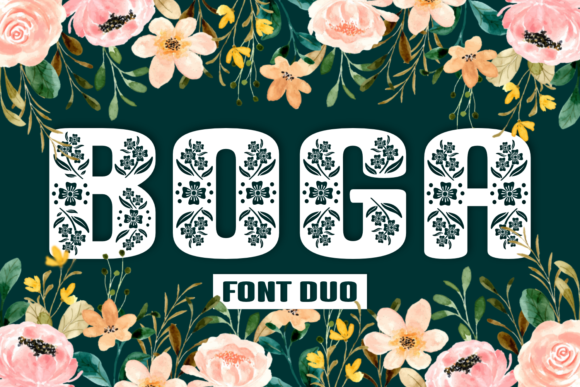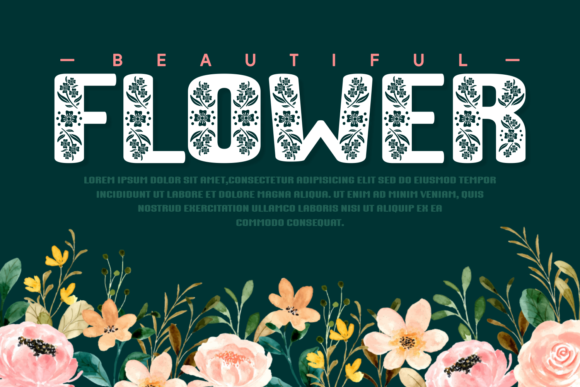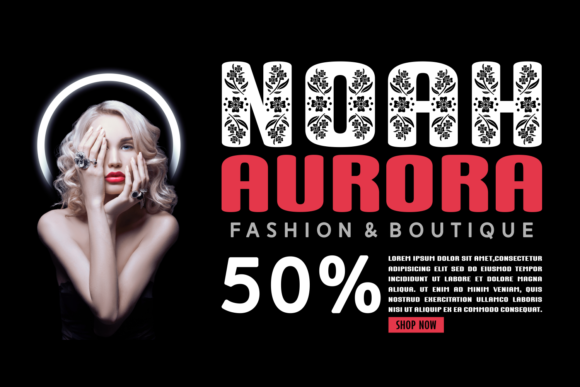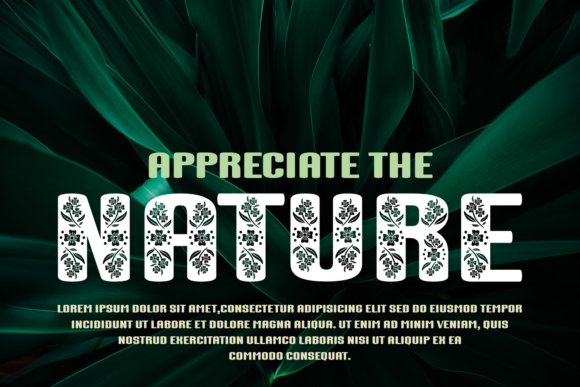
Boga Font
About the Boga Font
Elevate your designs with Boga Font, a font that combines sophistication with readability. Boga is a floral decorative font that adds a touch of nature to your projects, which is great with headers, logos, posters, and many more.
Boga’s decorative style is ideal for headlines, branding elements such as logos and watermarks, and short-form designs like posters or invitations. Its organic forms lend themselves well to projects emphasizing natural beauty or feminine aesthetics. However, its intricate details make it unsuitable for body text or UI elements where readability is paramount. Small sizes significantly reduce legibility.
Pairing Boga effectively requires considering its delicate nature. A clean sans-serif like Helvetica or a geometric sans-serif for a modern feel would create a strong contrast and visual balance. For a more traditional approach, a classic serif such as Garamond could provide a sophisticated counterpoint.
Boga projects a delicate yet confident personality; it’s elegant and graceful, suitable for brands associated with nature, beauty, or handcrafted goods. Avoid using it in contexts requiring a bold or assertive tone.
Boga Font Usage Examples